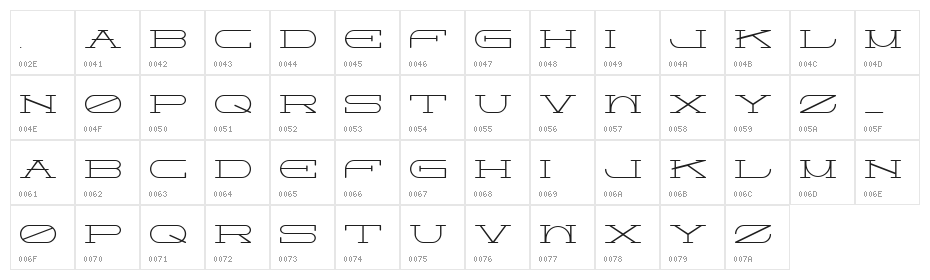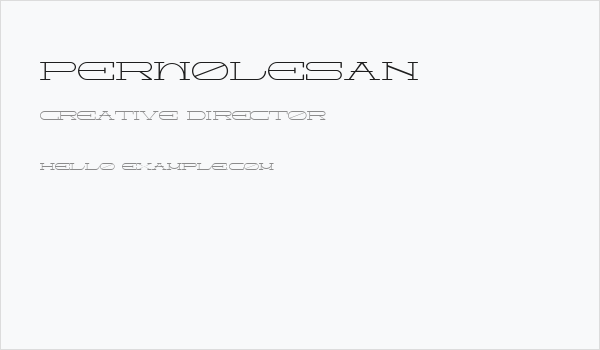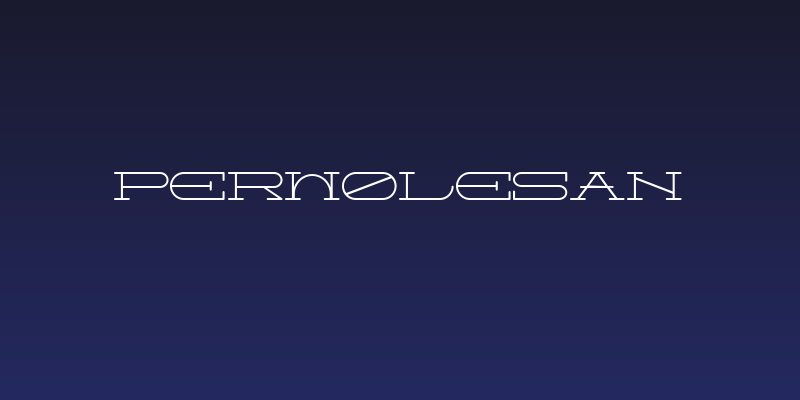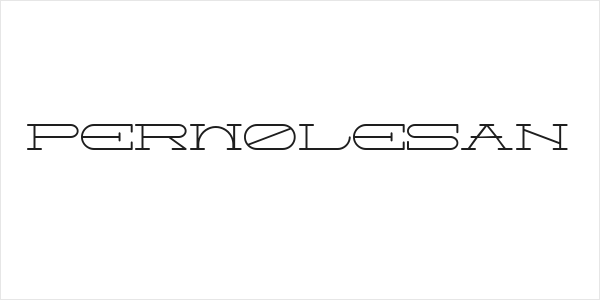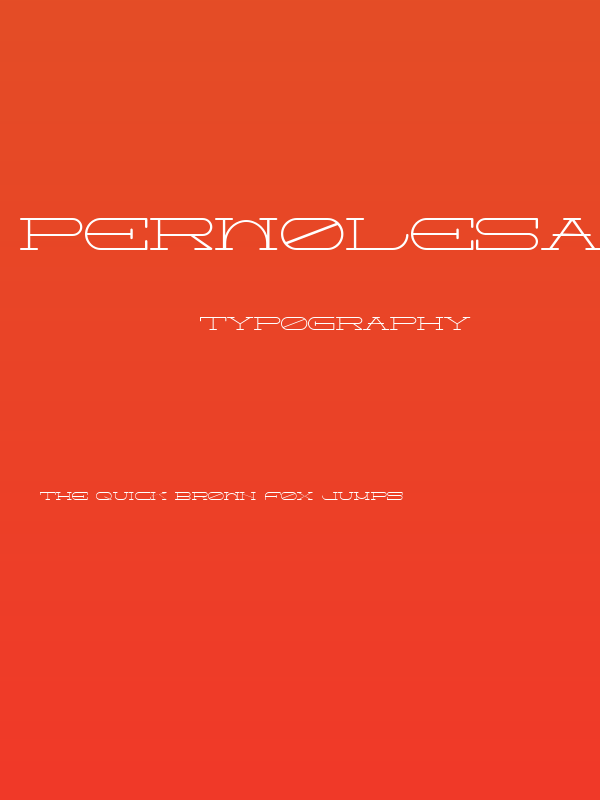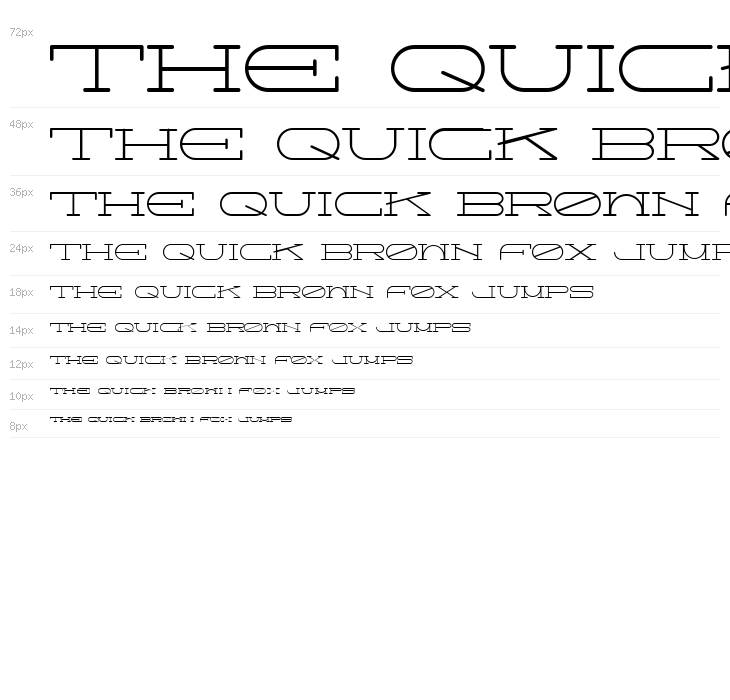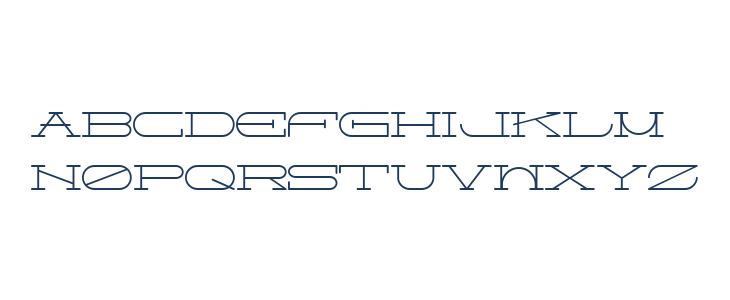
Perwolesan Font
Perwolesan Description
This font exhibits a futuristic and geometric design, characterized by its sharp angles and clean lines. The uppercase letters are distinct with a unique blend of straight and diagonal strokes, creating a sense of movement and modernity. The font maintains a consistent stroke width throughout, giving it a uniform appearance. The inclusion of slashes and bars within certain letters adds an avant-garde touch, making it stand out. The spacing between characters is balanced, ensuring readability while maintaining its stylistic edge. This font is ideal for projects that require a contemporary and innovative look.